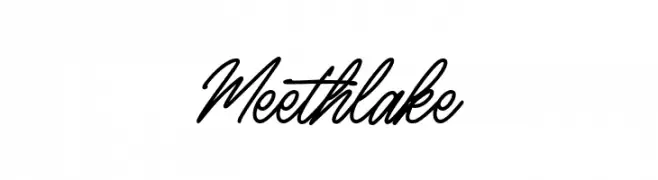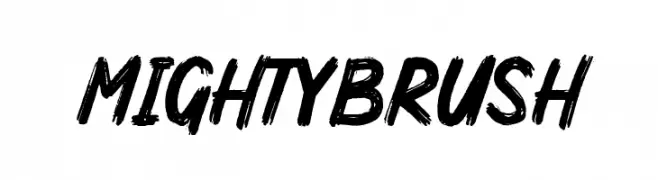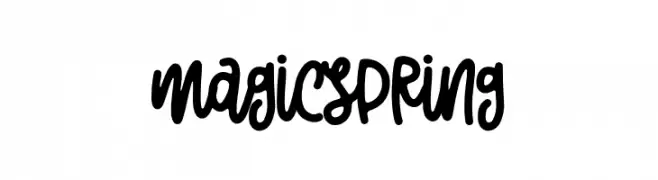
A fluid and elegant script font with cursive letterforms.
A bold, brush-stroke font with a dynamic and artistic style.
A bold, expressive brush-style font with dynamic strokes.
A playful and whimsical font with rounded, elongated letterforms.
A stylish and elegant script font with fluid, connected letterforms.
A fluid, cursive script font with elegant, connected strokes.
A bold, hand-drawn font with a textured, stamp-like appearance.
A playful and elegant handwritten script font with flowing curves.
A bold, textured, hand-drawn style font with a playful and artistic appearance.
A playful, bold, and rounded hand-drawn font with a whimsical style.